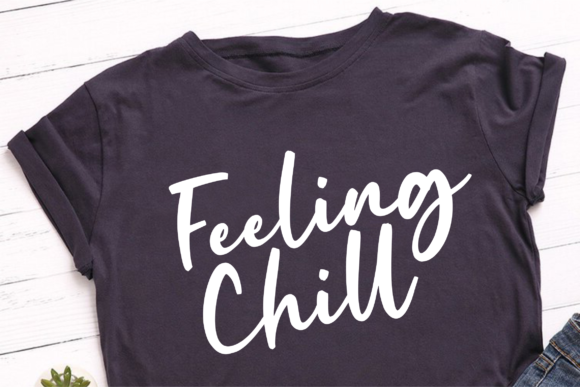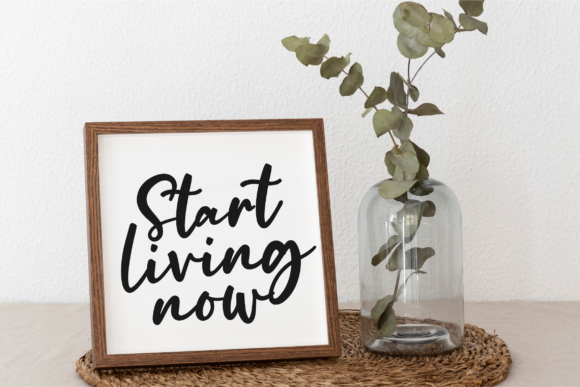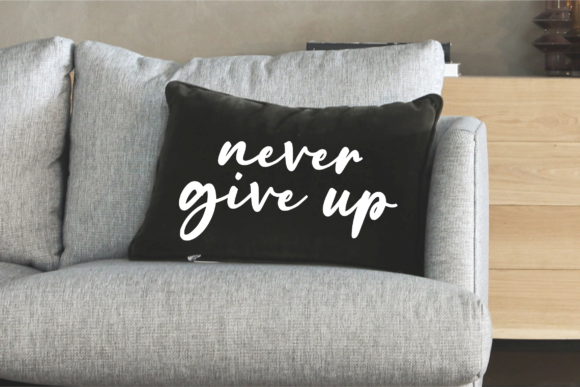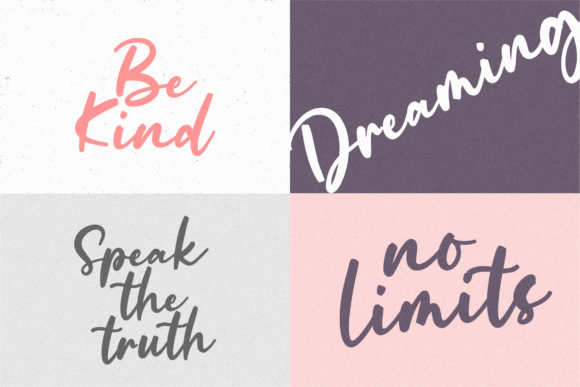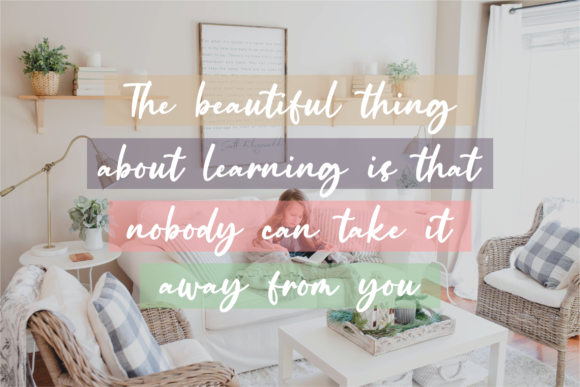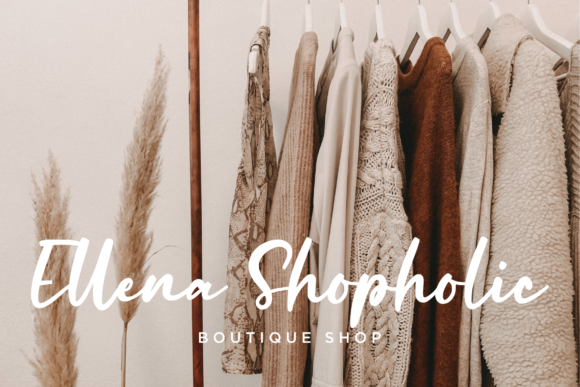
Discover the Magic of Handwritten Charm
There’s something special about holding a beautiful handwritten letter or a card that’s been lovingly crafted. It’s a feeling that’s hard to replicate with digital fonts, but what if you could capture that same sense of warmth and personality in your designs?
Enter the Delightifull Font, a enchanting handwritten script font that’s designed to add a touch of romance and whimsy to your next project. Whether you’re working on a greeting card, a wedding invitation, or a social media campaign, Delightifull Font is the perfect choice to add a personal and human touch.
For designers, Delightifull Font is a valuable tool to have in their arsenal. Its versatility and charm make it a great addition to any project, and its wide range of applications means you can use it in everything from print to digital design.
Delightifull Font Key Features
- Unique Characteristics: This font boasts a unique blend of modern and vintage elements, with intricate details and subtle textures that evoke a sense of nostalgia and sophistication.
- Scalability: The font is optimized for use at various sizes, from small captions to large headlines, ensuring that it remains legible and visually appealing in any context.
Delightifull Font Review
Overall, I have mixed feelings about the Delightifull Font. Here’s what I like and dislike about it.
- Unique and playful design: Delightifull Font has a whimsical feel to it that’s perfect for creating a lighthearted and fun atmosphere.
- Good for display text: The font’s large x-height and generous spacing make it well-suited for use in headings and titles.
- Highly customizable: Delightifull Font offers a range of OpenType features and stylistic sets that allow designers to tweak the font to suit their needs.
- Limited legibility: While Delightifull Font is great for display text, it can be challenging to read in smaller sizes or at a distance.
- Not suitable for body text: The font’s irregular letterforms and spacing make it difficult to use for large blocks of text.
- Limited language support: Delightifull Font may not be suitable for languages that require complex scripts or typography.
Overall, I think Delightifull Font is a great choice for designers who want to add a touch of whimsy to their designs. However, it may not be the best option for projects that require clear, readable text.
Getting the Most Out of Delightifull Font
To get the most out of Delightifull Font, try the following:
Pair it with bold, bright colors to create a striking visual effect.
Use it in combination with other playful fonts to add a whimsical touch to your designs.
Experiment with different font sizes and styles to create a unique and eye-catching look.
Delightifull Font is perfect for:
Creating eye-catching social media graphics.
Designing playful marketing materials.
Adding a touch of whimsy to your website or blog.
Q: Can I customize the Delightifull Font to fit my specific design needs?
The Delightifull Font is designed to be highly customizable. You can adjust font sizes, colors, and styles using your design application’s built-in tools. Additionally, the font’s OpenType features allow for advanced typographic control, including ligatures, swashes, and contextual alternates.